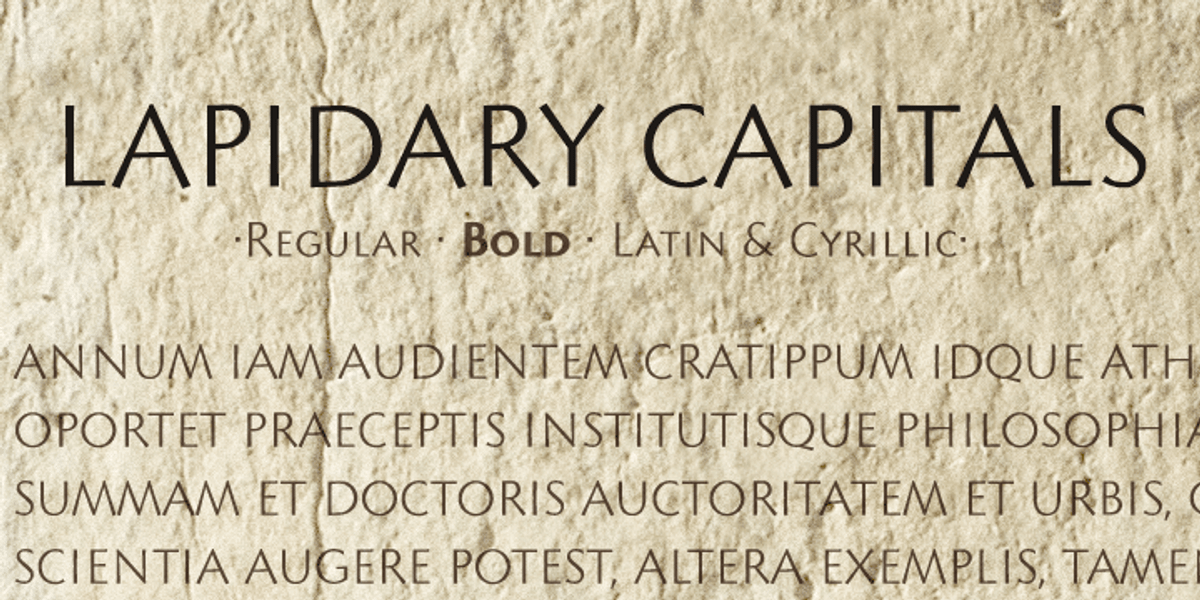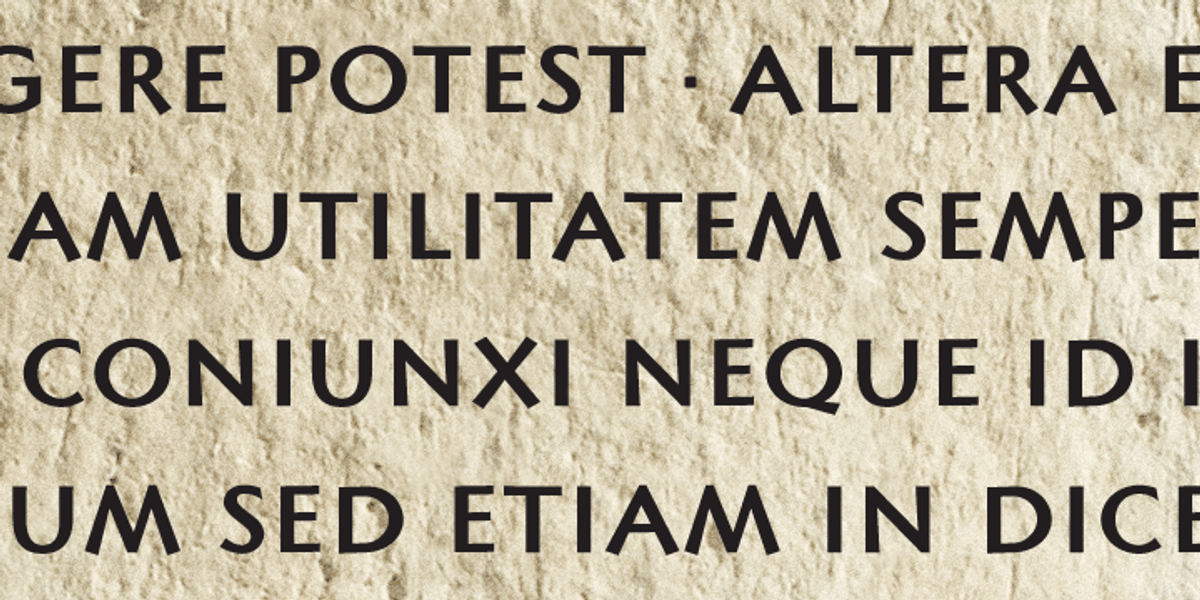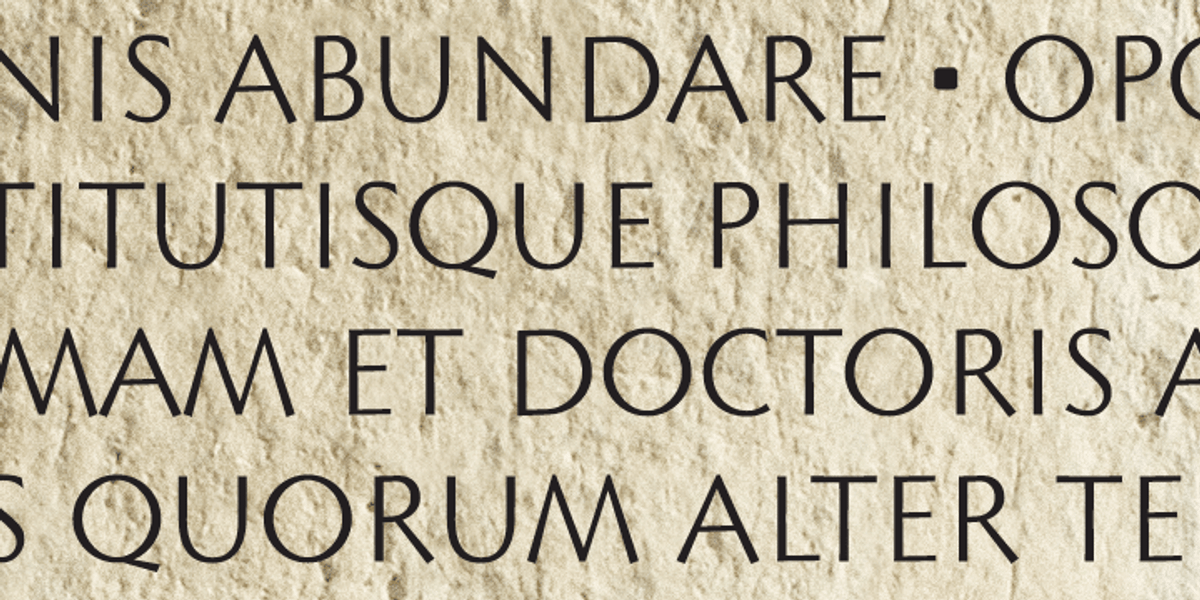
Lapidary Capitals
This inscriptional sans serif font draws inspiration from Roman lapidary writing of the 2nd century BC. It is characterized by its all-caps design and high contrast between thick and thin strokes, evoking a sense of classical authority.